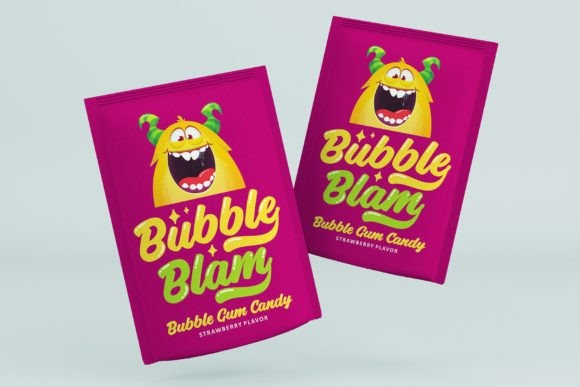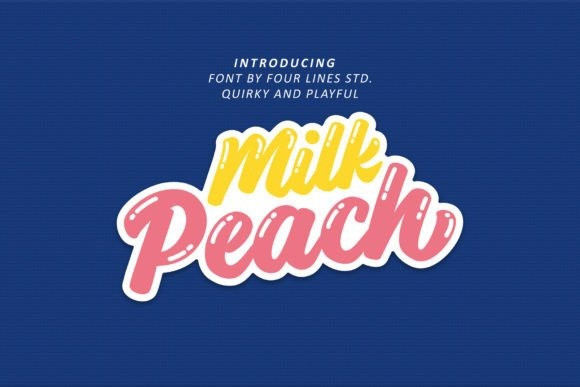
Milk Peach Font
Milk Peach Font is a delightfully quirky and playful display font that brings joy and personality to your designs. With its lively and unconventional letterforms, unexpected strokes, and playful accents, this typeface adds a touch of whimsy to any project. Perfect for children’s books, playful branding, and projects that demand a splash of fun. Let your creativity run wild.